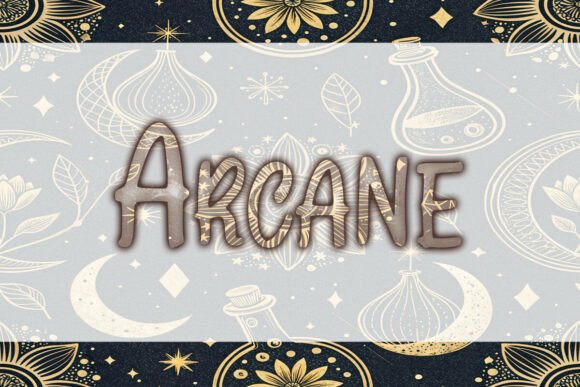
Arcane Font: Unleashing the Magic in Your Creative Projects
Have you ever found yourself staring at a blank canvas, searching for the perfect combination of words to bring your vision to life? That’s where the magic happens, and for many creatives, it’s the font that sets the tone for their masterpiece. It’s in these moments that we discover the true power of typography.
Enter the Arcane Font, a typographic masterpiece that’s been designed to elevate your creative projects to new heights. This versatile font is perfect for designers who want to add a touch of sophistication and style to their work. From logos to social media posts, the Arcane Font is the perfect tool to help you craft captivating content that leaves a lasting impression.
Whether you’re a seasoned designer or just starting out, the Arcane Font is an invaluable addition to your toolkit. Its unique character and versatility make it an ideal choice for a wide range of creative projects, from print to digital media.
Arcane Font Key Features
- Font Family: Arcane Font is a unique, high-quality font family designed for various applications, including gaming, fantasy, and science fiction.
- Character Set: The font includes a wide range of characters, including uppercase and lowercase letters, numbers, punctuation, and special characters, making it suitable for various writing systems.
- Unique Characteristics: Arcane Font features a distinctive, hand-drawn design with intricate details and subtle texture, giving it a unique and eye-catching appearance.
Arcane Font Review
Overall, I’m quite impressed with the Arcane Font. ✨ It’s a unique, mystical font that’s perfect for fantasy-themed projects. The font is highly customizable, allowing you to adjust the weight, width, and slant to your liking. This level of flexibility makes it an excellent choice for designers who need a versatile font that can adapt to different design contexts.
- Unique, mystical design that’s perfect for fantasy-themed projects
- Highly customizable with adjustable weight, width, and slant options
- Includes a wide range of languages and characters, making it suitable for global designs
- May not be suitable for modern or minimalist designs due to its mystical, ornate style
- Can be overwhelming in large quantities, so use it sparingly to avoid visual clutter
- Lacks a clear, modern sans-serif counterpart, which may limit its versatility in certain design contexts
The Arcane Font is a solid choice for designers who need a unique, mystical font for their fantasy-themed projects. While it may have some limitations, its high level of customization and wide range of language support make it a valuable addition to any designer’s toolkit.
Tips for Getting the Most Out of Arcane Font
To get the most out of Arcane Font, consider the following tips:
- Use it in combination with other fonts to create a unique and eye-catching design.
- Use it in headings and titles to draw attention and create hierarchy.
Arcane Font is commonly used in:
- Magical and mystical-themed designs.
- Fantasy and science fiction graphics.
- Book covers and interior design.
Alternatives to Arcane Font for Designers